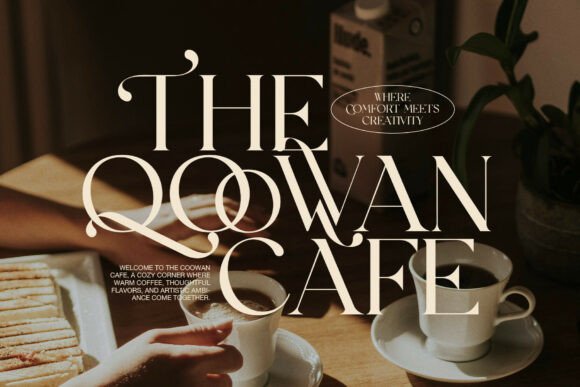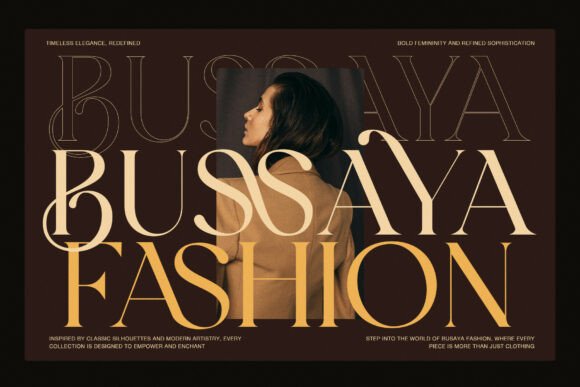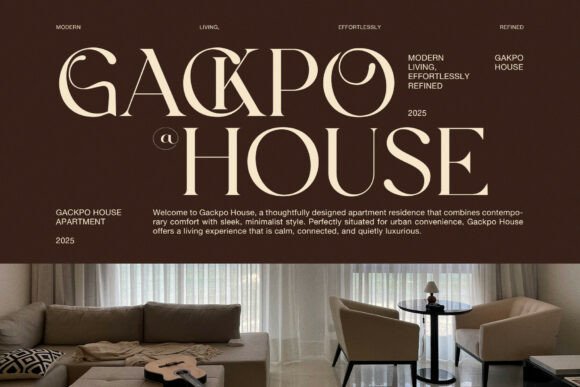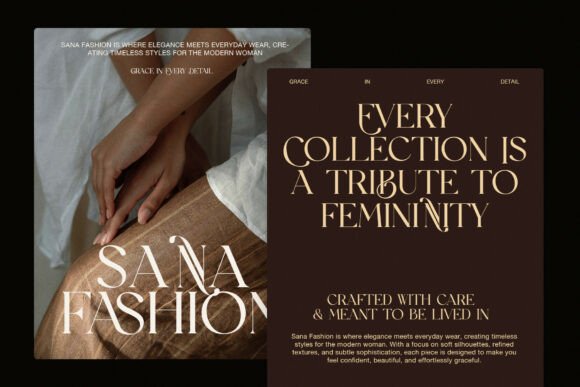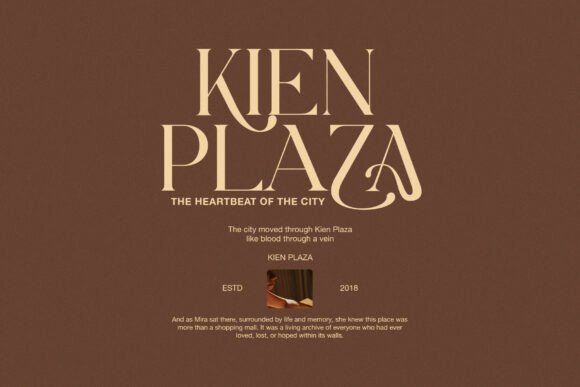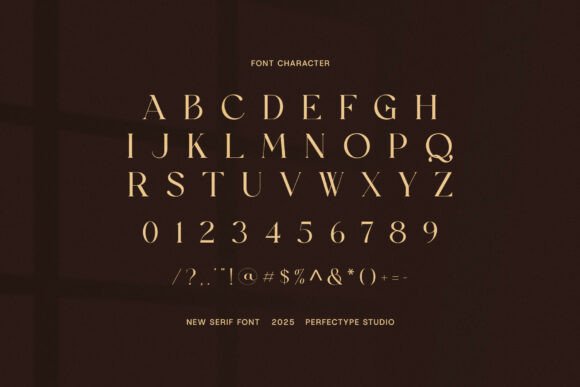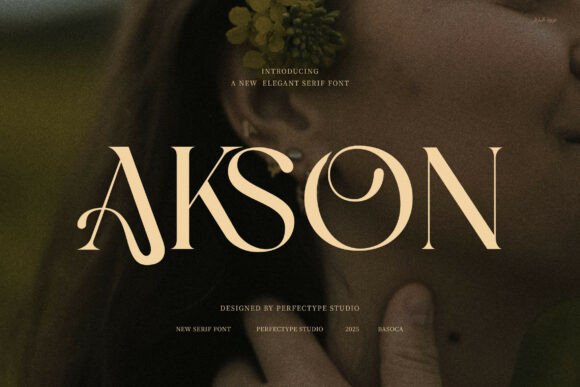
Akson Font: Elevate Your Branding with Elegant Serif Style
In the world of typography, finding the perfect font that combines modern style with timeless elegance can be a daunting task. However, look no further than the Akson Font, a sophisticated serif font designed to meet the diverse needs of branding projects. With its unique blend of contemporary flair and classic charm, Akson is the ideal choice for designers and crafters seeking to elevate their visual creations.
Modern Style Meets Timeless Elegance
Akson Elegant Serif Font is crafted with the perfect balance of modern style and timeless elegance, making it an excellent addition to any branding project. Its proportional shapes ensure seamless adaptability across various applications, from logos and websites to magazines, layouts, and advertisements. Whether you’re designing for a boutique, food product, or corporate branding, Akson provides a refined look that instantly elevates your project.
Functional Ligatures for Enhanced Readability
One of the standout features of Akson Font is its functional ligatures. These ligatures create smooth, natural letter connections that significantly enhance the overall visual appeal and readability of your designs. By incorporating Akson into your project, you can ensure that your text not only looks professional but also engages your audience with ease.
Versatility Across Multiple Applications
Akson’s versatility is one of its most compelling attributes. This elegant serif font works seamlessly across various applications, including:
- Logos: Create a lasting impression with a professional and attractive logo that reflects your brand’s identity.
- Websites: Enhance your website’s typography with a clean and sophisticated font that adapts perfectly to digital formats.
- Magazines and layouts: Add a touch of elegance to your publications with a font that exudes refinement and poise.
- Advertisements: Capture your audience’s attention with a bold yet sophisticated font that commands attention.
Clean yet Sophisticated Style
Akson Font boasts a clean yet sophisticated style that gives your text a professional and attractive appearance. This is essential for making a lasting impression on your audience, whether you’re designing for print or digital formats. The font’s balanced proportions and elegant details ensure harmony and consistency in every design, making it an excellent choice for designers and crafters.
Supporting Digital and Print Formats
In today’s digital age, it’s crucial to have a font that supports both digital and print formats. Akson Font confidently meets this requirement, allowing you to use it across various mediums without compromising on quality or style. Whether you’re designing for a website, social media, or print materials, Akson ensures that your text looks stunning and professional.
Why Choose Akson Font?
With so many fonts available, why choose Akson Font for your branding projects? Here are just a few reasons:
- Unique blend of modern style and timeless elegance: Akson Font offers a distinctive combination of contemporary flair and classic charm, making it an excellent choice for designers seeking to create visually stunning designs.
- Functional ligatures: Akson’s ligatures create smooth, natural letter connections that enhance readability and visual appeal.
- Versatility across multiple applications: From logos to websites, magazines, and advertisements, Akson Font adapts perfectly to various design needs.
- Clean yet sophisticated style: Akson’s font style gives your text a professional and attractive appearance, essential for making a lasting impression.
In conclusion, Akson Font is an exceptional choice for designers and crafters seeking to elevate their branding projects with a touch of elegance and sophistication. With its unique blend of modern style and timeless elegance, functional ligatures, and versatility across multiple applications, Akson Font is the perfect solution for various design needs. Whether you’re designing for boutiques, food products, or corporate branding, Akson provides a refined look that instantly elevates your project. So why wait? Discover the power of Akson Font and take your branding to the next level.